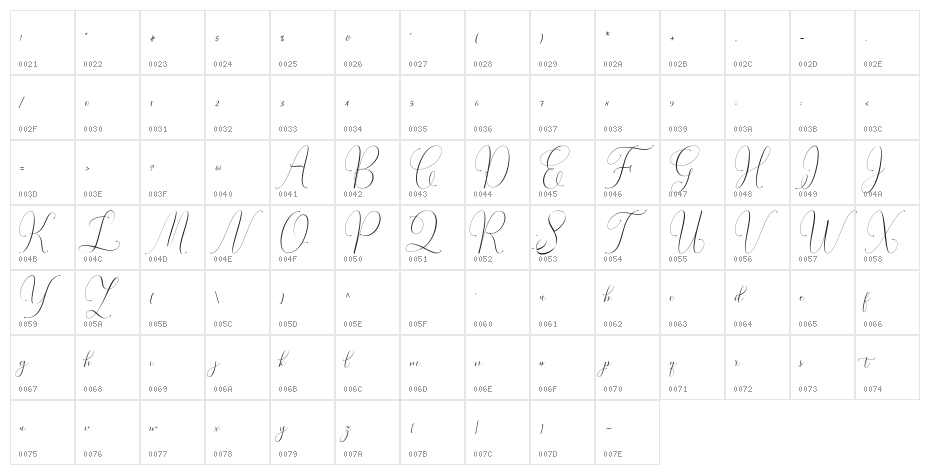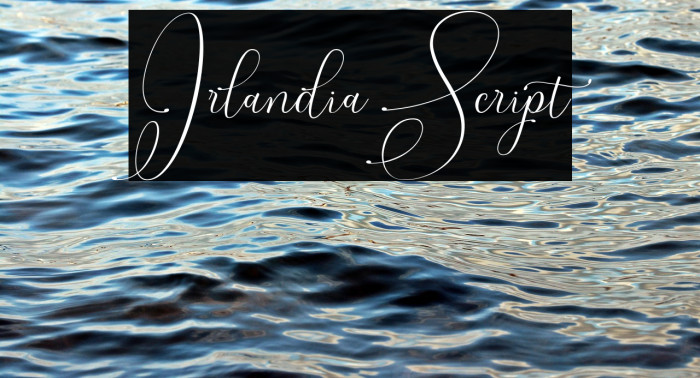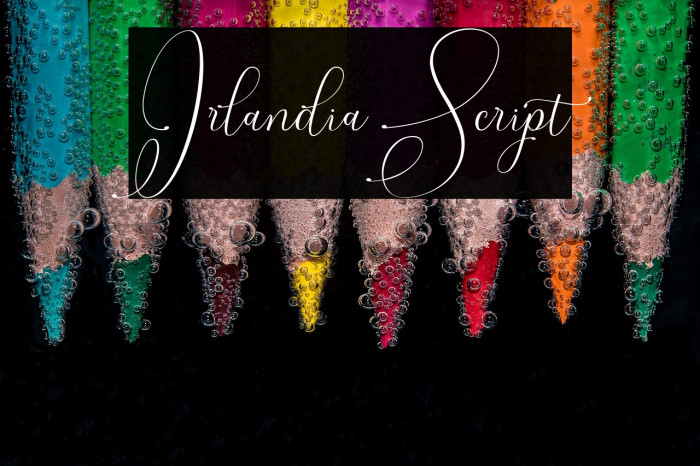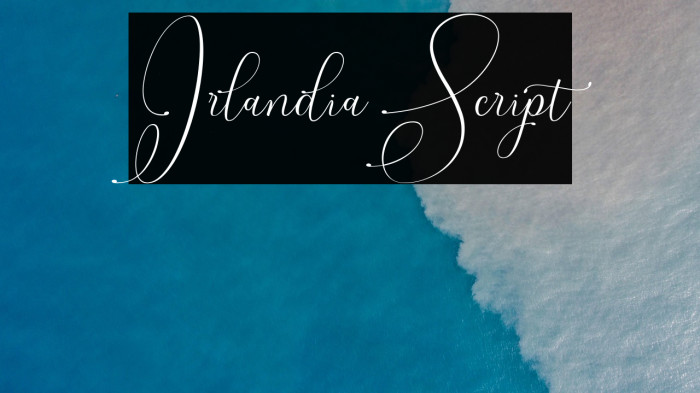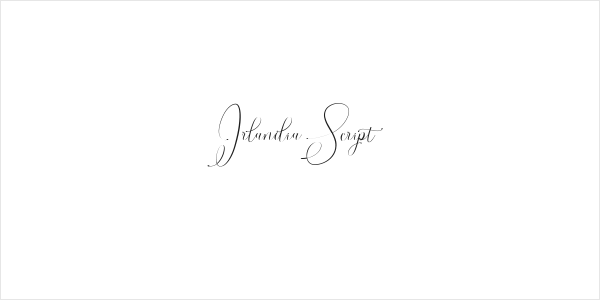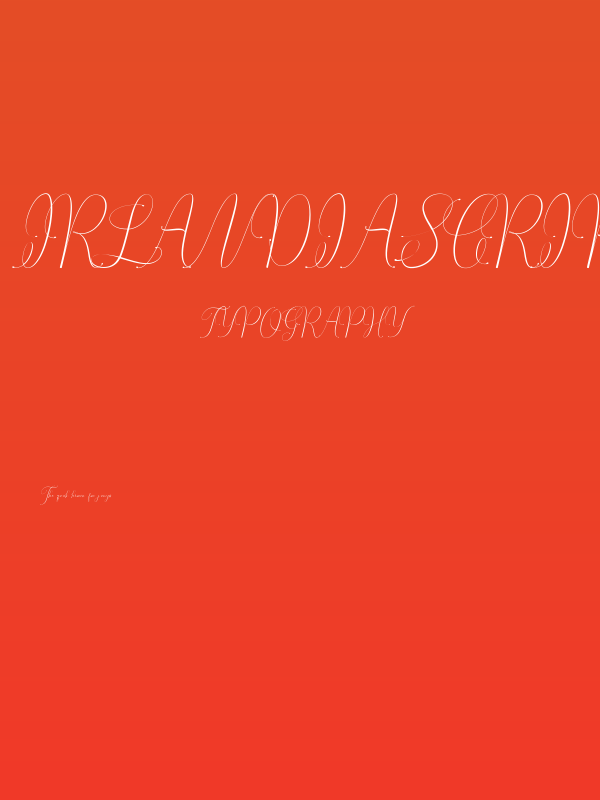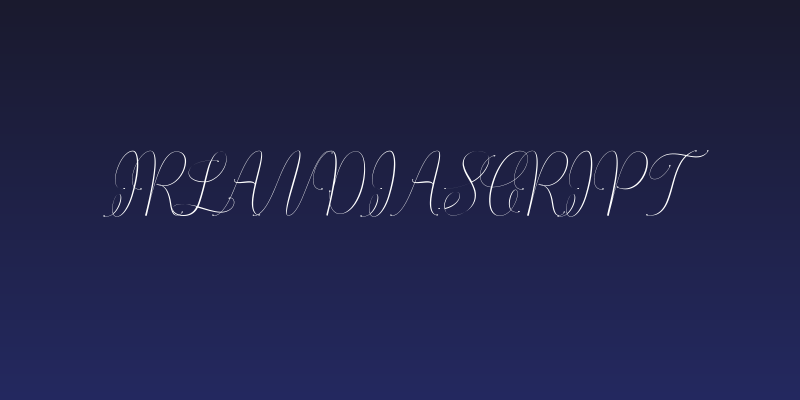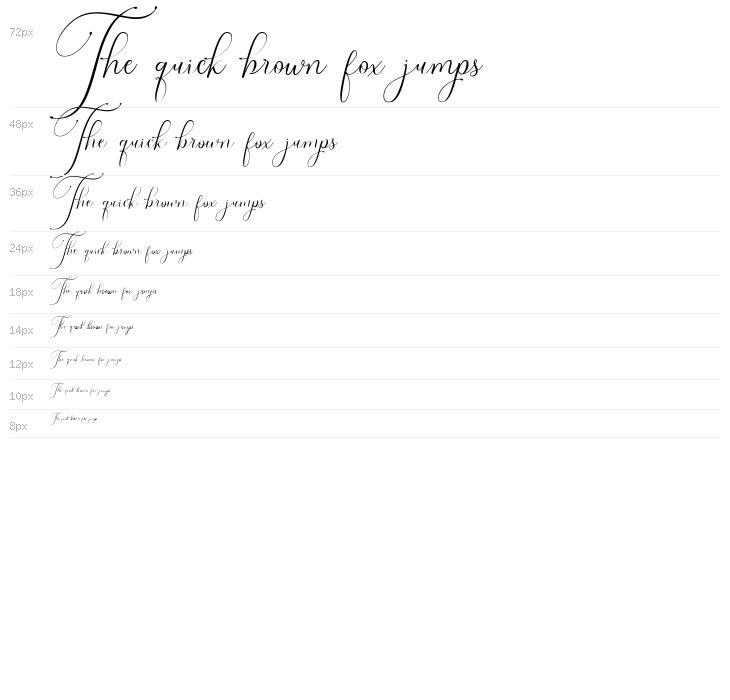
Irlandia Script Font
Irlandia Script Description
This elegant script font features a graceful and flowing design, characterized by its delicate curves and loops. The uppercase letters are ornate, with intricate swirls that add a touch of sophistication. The lowercase letters maintain a consistent flow, enhancing readability while retaining an artistic flair. The numerals are styled to match the overall aesthetic, ensuring a cohesive look. Special characters are thoughtfully designed, complementing the font's elegant nature. This font is ideal for projects that require a touch of elegance and sophistication, such as wedding invitations, formal event programs, or luxury branding.
| Overall Style | Elegant |
| Use Case | Invitations, Branding, Stationery |
| Proposed Projects | Wedding invitations, formal event programs, luxury branding, elegant stationery. |